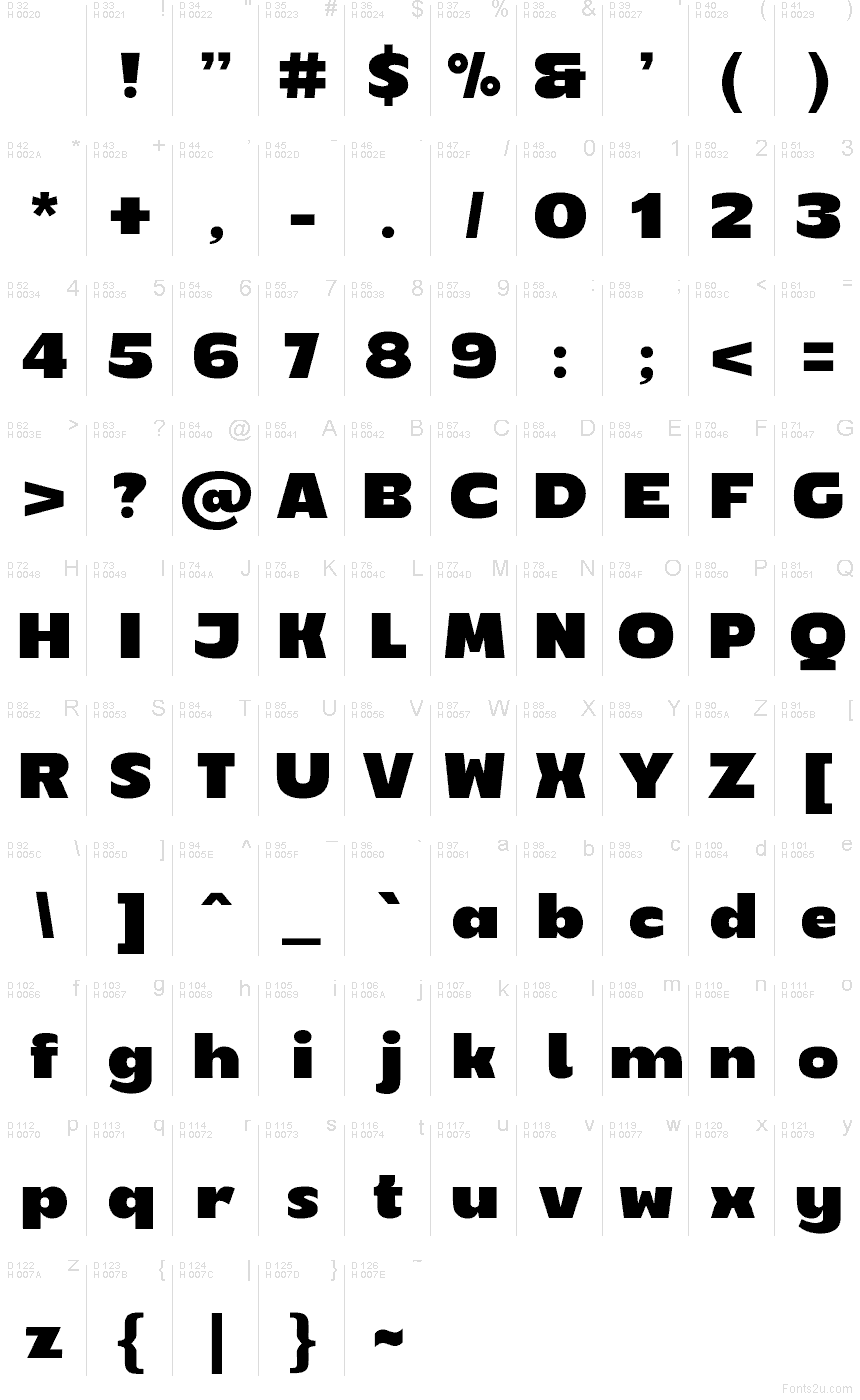
Mertune font by Muhamad Fikry Nuralif of Fikryal Studio is a free chunky sans serif font, with a typeface feel that’s unapologetically bold and compact. Its letterforms are blocky and weighty, yet the curves stay smooth, giving you that inked, poster-stamp punch without looking rough. Tight spacing and big, confident shapes make short phrases land fast.
Using Mertune works beautifully for logos, streetwear tags, poster headlines, YouTube thumbnails, packaging fronts, event flyers, and punchy social ads. Pair it with a lean neutral sans in regular weight (or a clean grotesk) and let Mertune handle the titles-keep it large so the dense counters stay crisp. This free font brings instant impact.